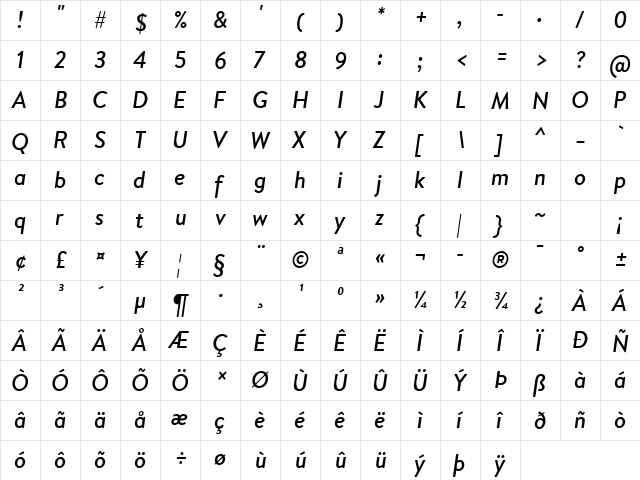
Brandon Text Medium Italic Font Preview
Brandon Text Medium Italic
Brandon Text Medium Italic Font Details
| Foundry | Hannes von Doehren |
| Designer | Hannes von Doehren |
Design Context for Brandon Text Medium Typeface
Brandon Text Medium is a composed and adaptable typeface that performs quietly and consistently across a wide range of design contexts. The slanted form adds forward momentum and visual energy.
Pro Tip: Try Brandon Text Medium for annotation and caption copy alongside an upright companion — the contrast in angle creates a dynamic but ordered typographic system.